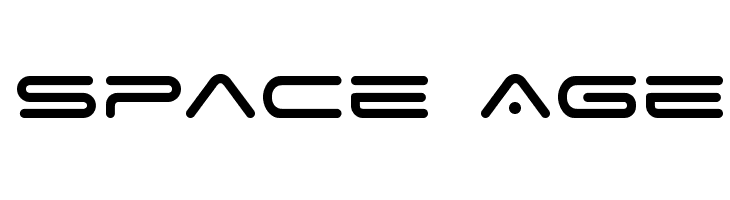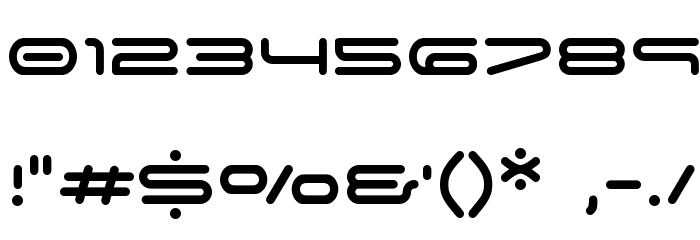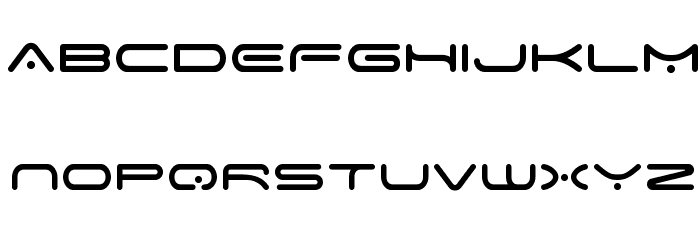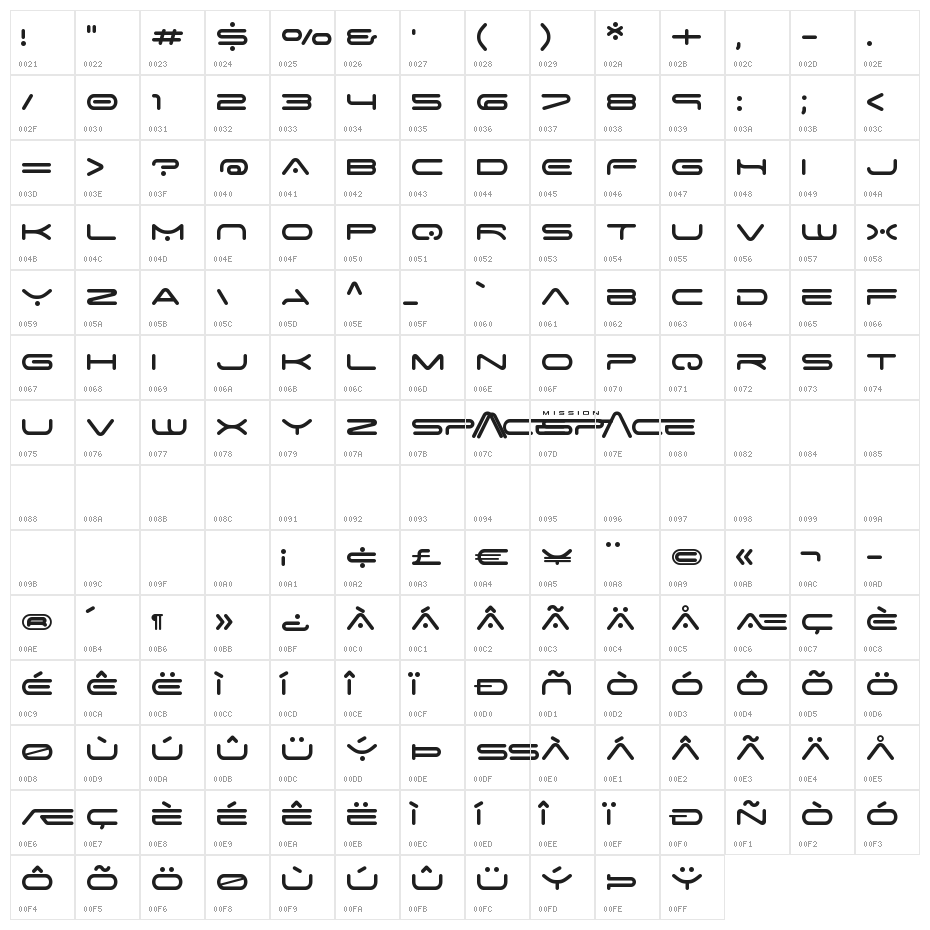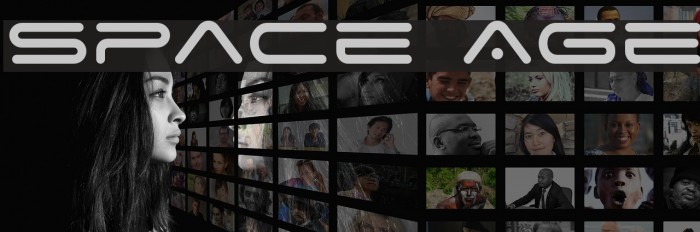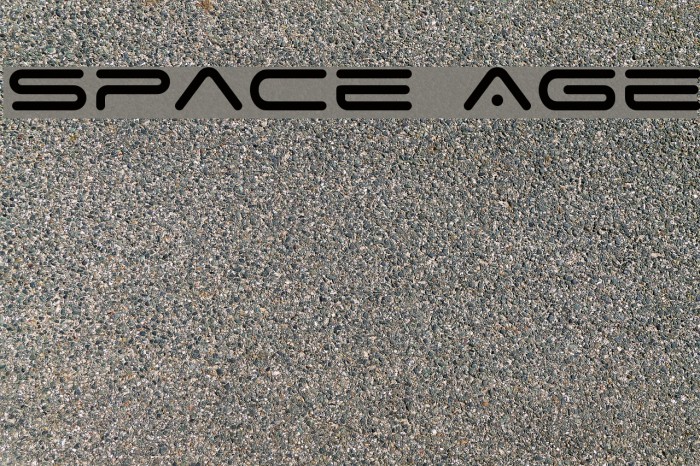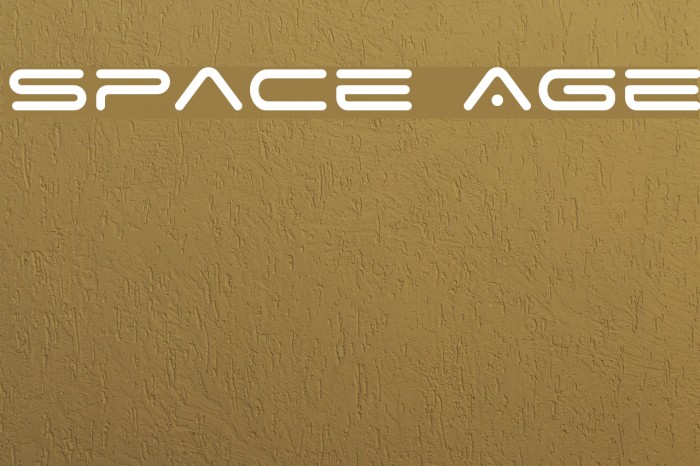
Space Age Font
Space Age Description
This futuristic font features a sleek, modern design with rounded edges and a geometric structure. The characters are evenly spaced, creating a harmonious balance that enhances readability. The uppercase and lowercase letters maintain a consistent style, with unique elements such as the open loops in letters like 'P' and 'R'. The numerals are designed to match the overall aesthetic, with a clean and streamlined appearance. Special characters are thoughtfully integrated, maintaining the font's cohesive look. This font is ideal for projects that require a contemporary and innovative feel.